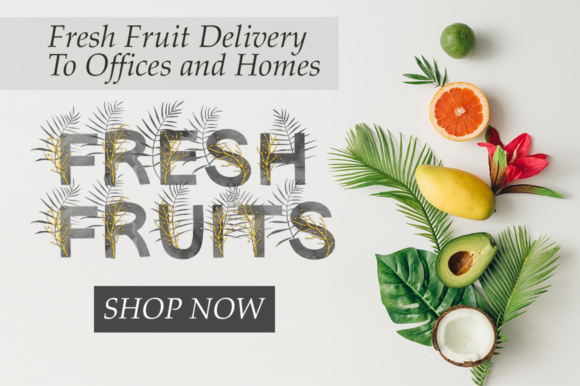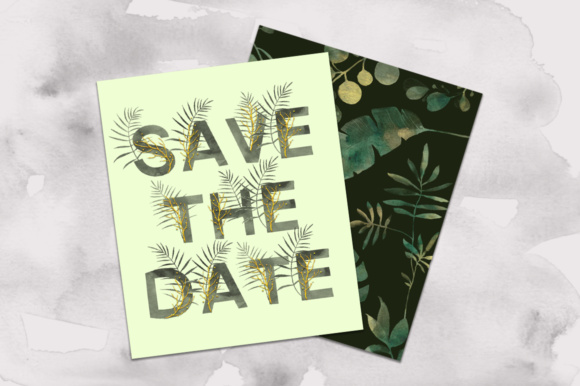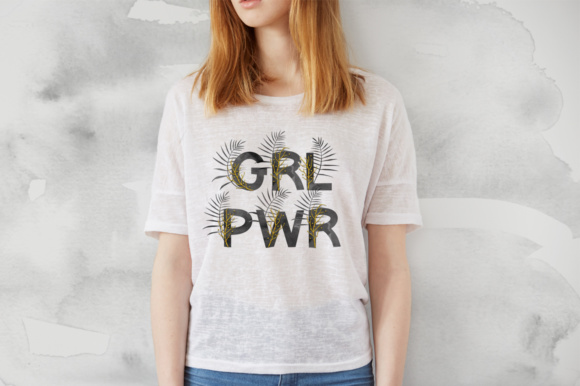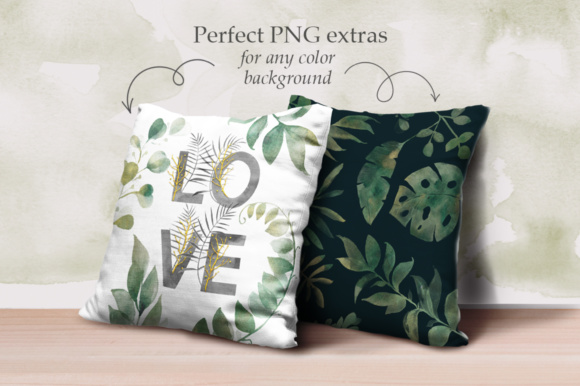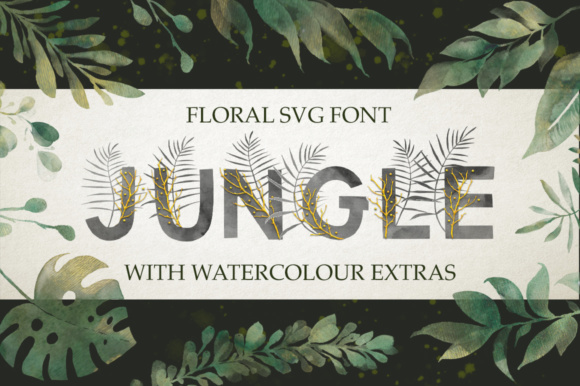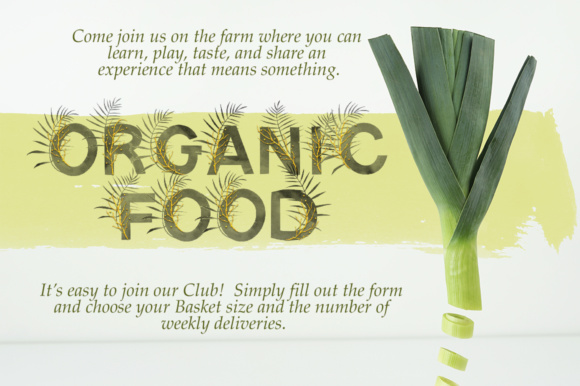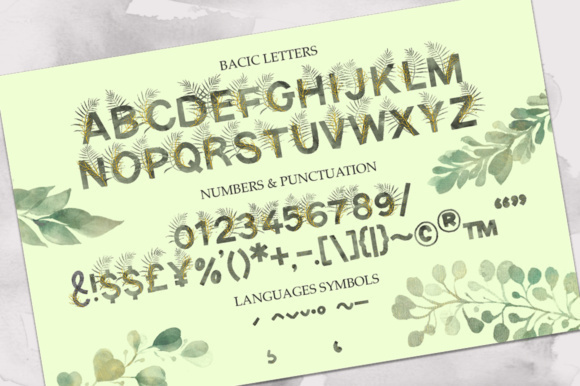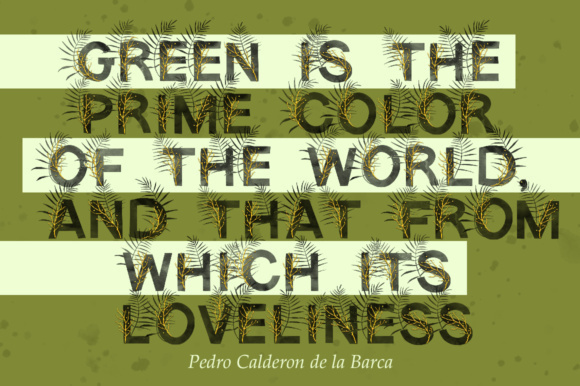
Jungle Font
About Jungle Font
Jungle is a vibrant and artistic font that captures the essence of watercolor hand-drawn letters and symbols. Created with high-resolution details, it brings a unique and organic look to your designs. In addition to the font itself, Jungle also offers a collection of 26 beautiful watercolor floral drawings in separate PNG files, allowing you to enhance your designs with colorful botanical elements.
The hand-drawn letters and symbols of Jungle exude a playful and artistic vibe. The watercolor texture adds depth and character to each character, making them appear as if they were painted by hand. This gives your designs a natural and handmade feel, perfect for projects that require a touch of creativity and individuality.
Whether you’re aiming for a whimsical and artistic look or a nature-inspired design, Jungle offers the tools to bring your vision to life. Let the watercolor hand-drawn letters and symbols, along with the vibrant floral drawings, infuse your designs with creativity and beauty.